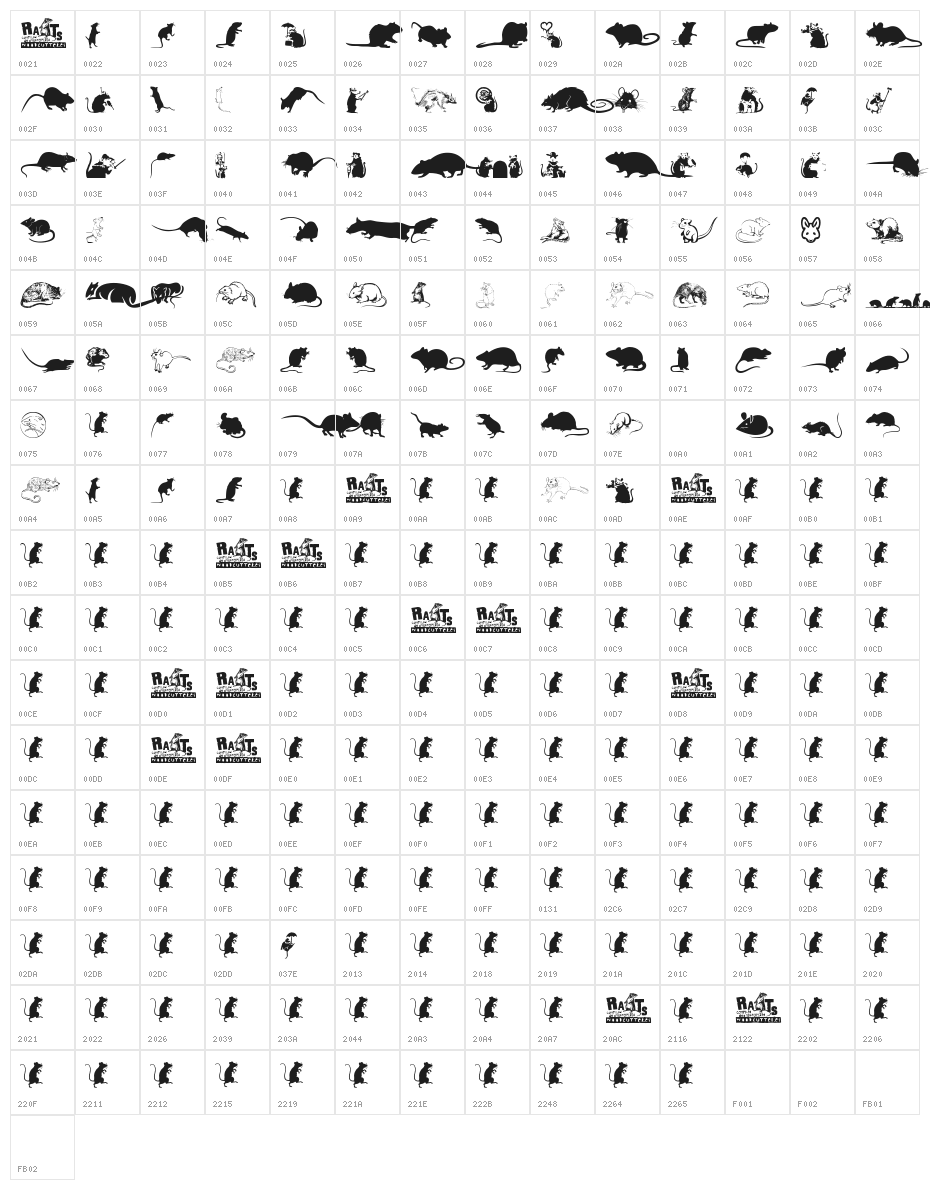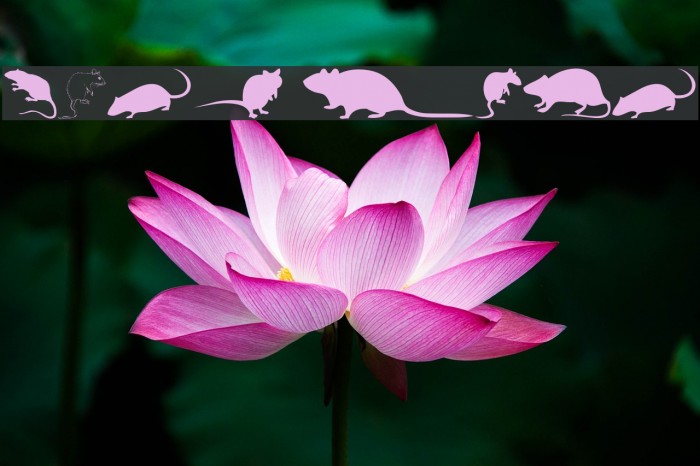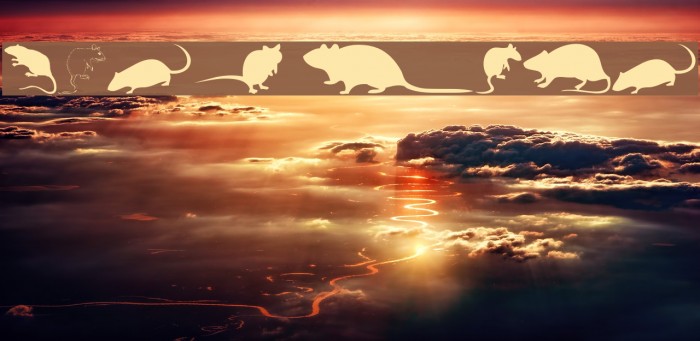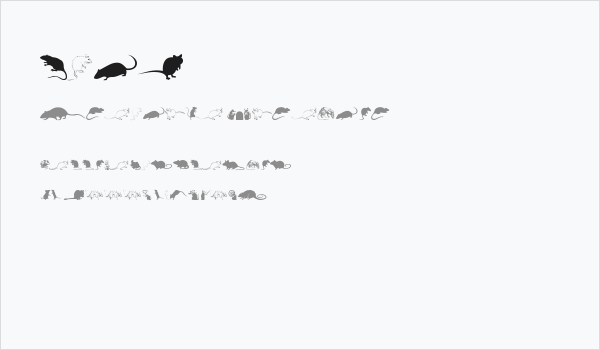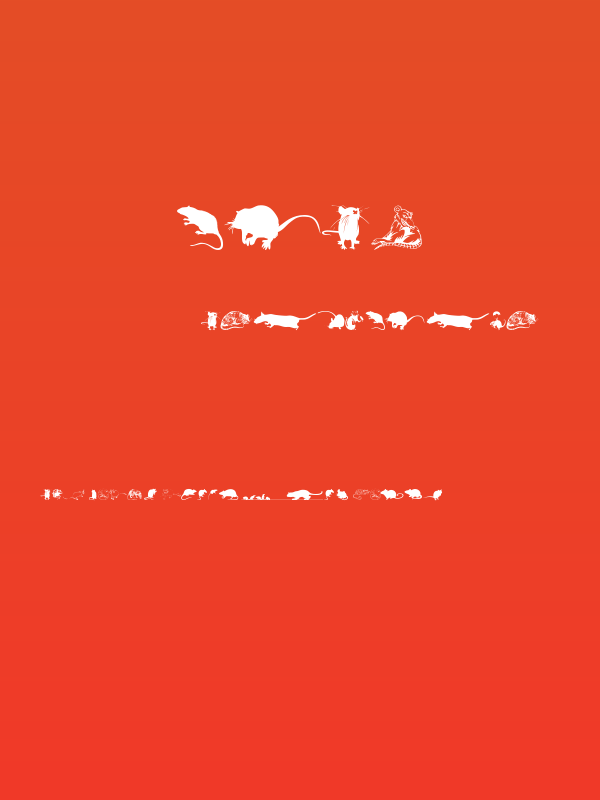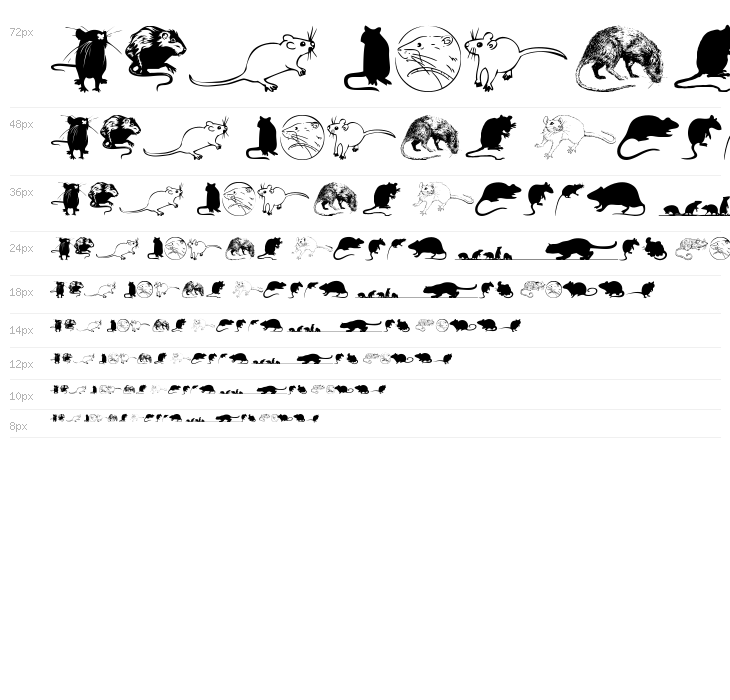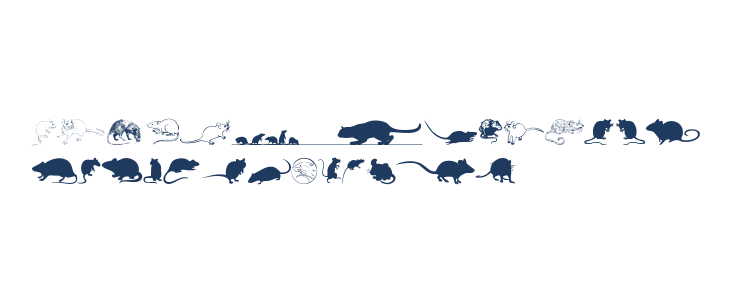
Rats Font
Rats Description
A decorative font composed entirely of various illustrated rat and mouse silhouettes, each character represented by a unique rat or mouse pose, some with playful or whimsical elements. The style alternates between solid black and outlined drawings, with considerable variation in character width and height.
| Overall Style | Whimsical, Decorative, Playful |
| Use Case | Logos, Headlines, Posters, Themed events |
| Proposed Projects | Children's books, animal-themed posters, Halloween invitations, quirky branding, educational materials. |